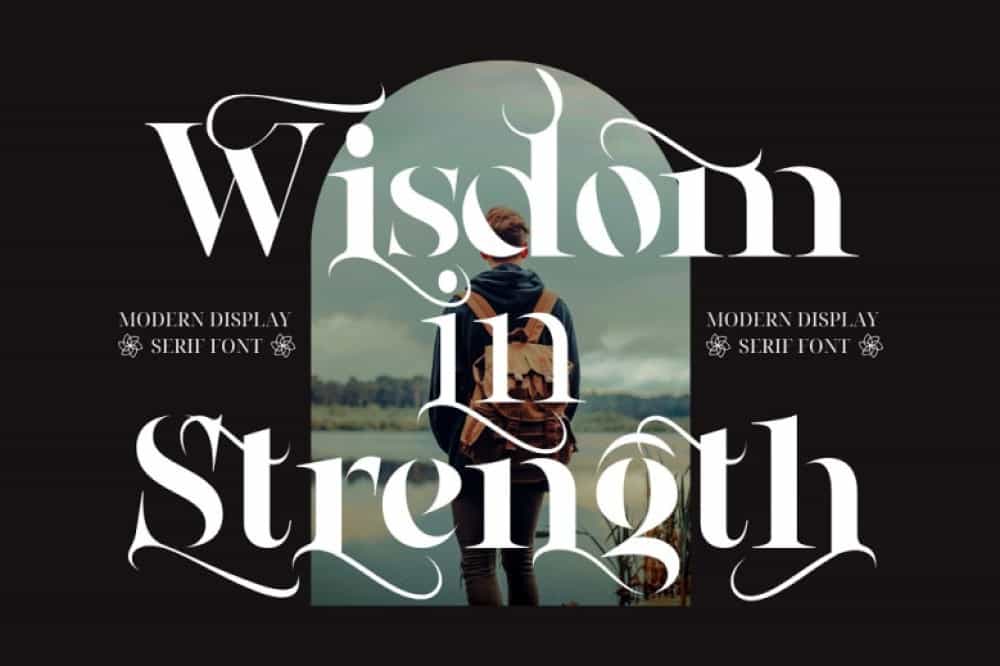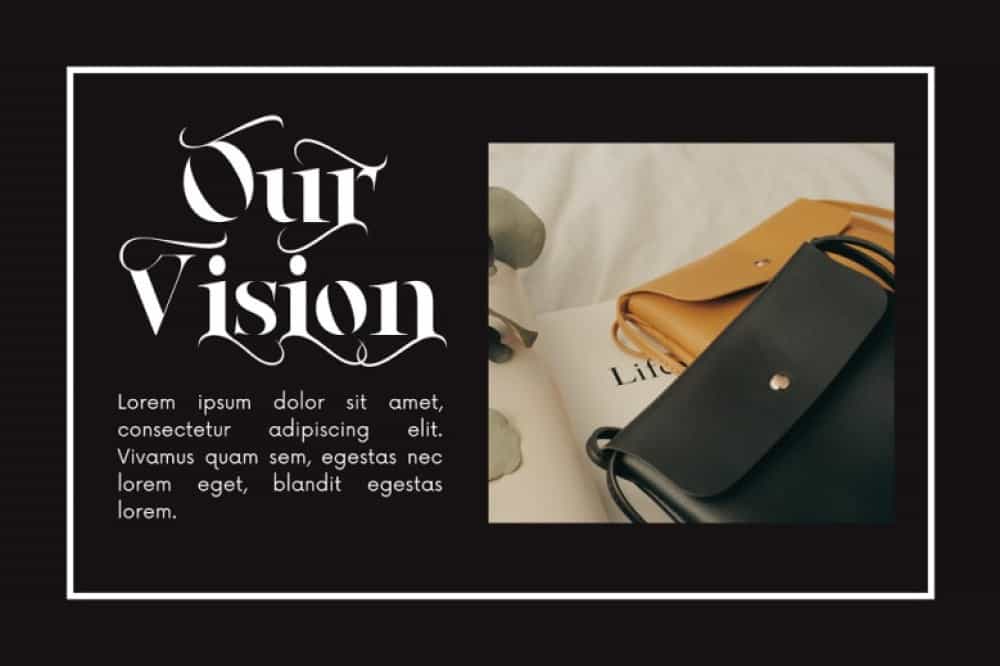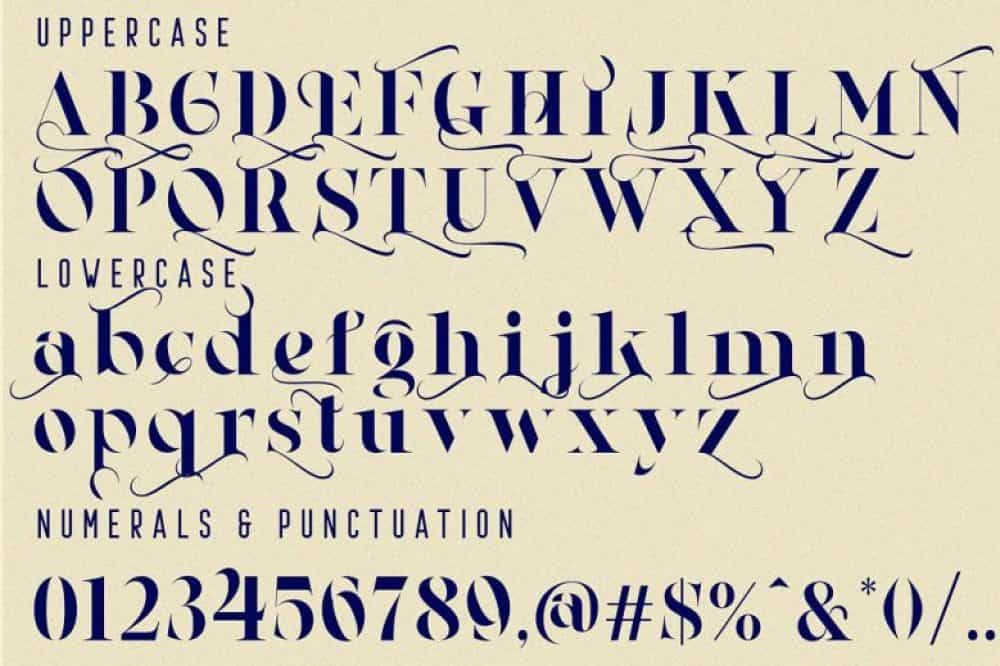
Wisdom in Strength is a modern display serif font. The background is quite neutral with a soft texture that creates a unique and favorable contrast to the font on use. This modern serif font with elegant style is suitable for branding, logos, invitation, magazines, product packaging, and much more.